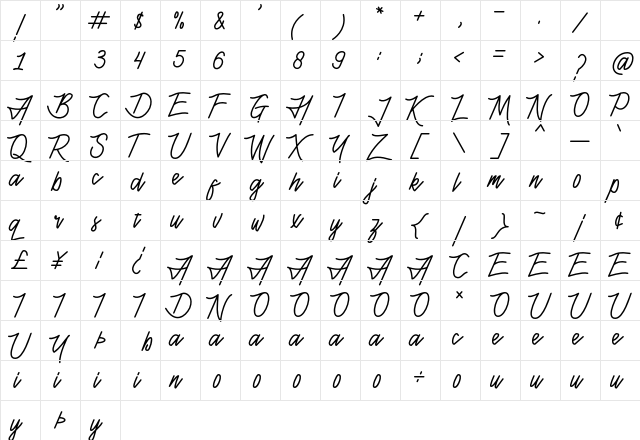
Henshin Script Personal Use Regular
| Foundry | Gartype Studio |
| Designer | Gumilang Anggara Ruslan |
Design Context for Henshin Script Personal Use Typeface
Henshin Script Personal Use flows with the natural rhythm of handwritten lettering, making it ideal for designs that call for warmth and personal expression.
Font Pairing: Combine Henshin Script Personal Use with a simple geometric sans for maximum contrast — the tension between flowing curves and clean structure is a classic typographic pairing.
Pro Tip: Pair Henshin Script Personal Use with a clean sans-serif for supporting text. The contrast between fluid script and geometric structure creates an elegant typographic hierarchy.